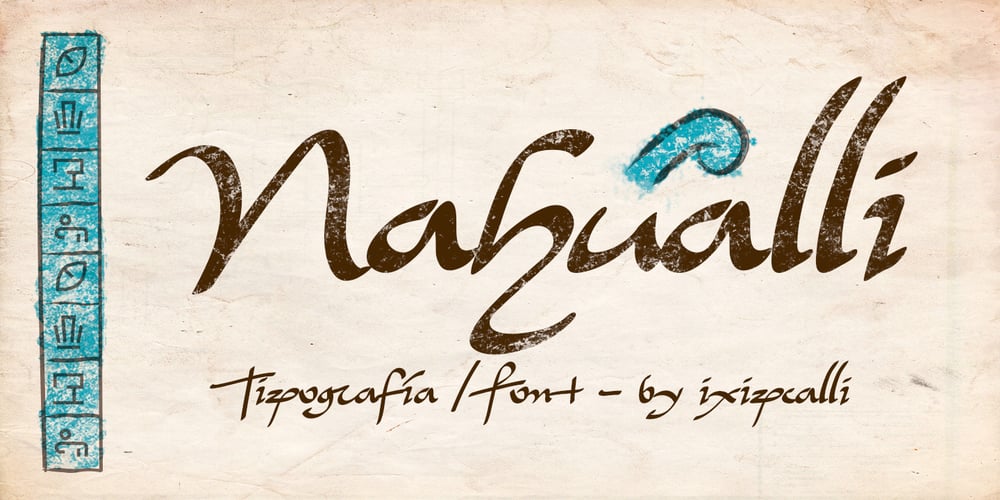
Nahualli Font Family was designed by Francisco Arellano and published by Ixipcalli. Nahualli contains 2 styles and family package options. La tipografía Nahualli, esta basada en los escritos castellanos del Códice Méndoza del siglo XVI. Aunque no es un estilo claro, la caligrafía aporta un estilo perfecto para documentos historicos.The Nahualli typography is based on the Castilian writings of the Méndoza Codex of the 16th century. Although it is not a clear style, calligraphy provides a perfect style for historical documents.